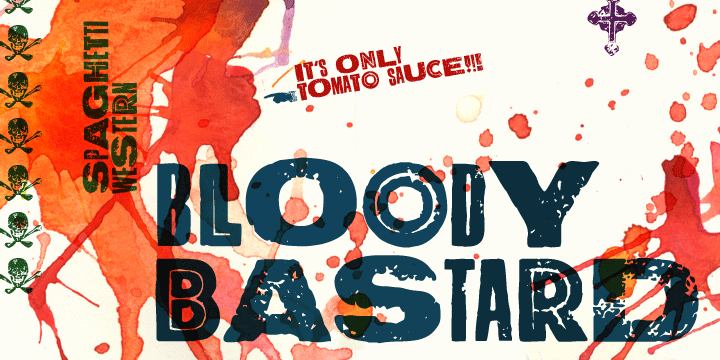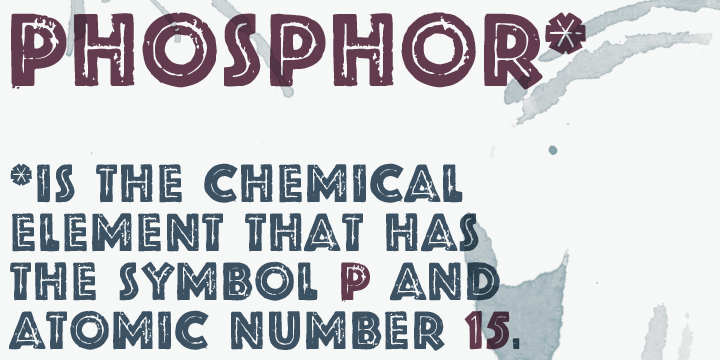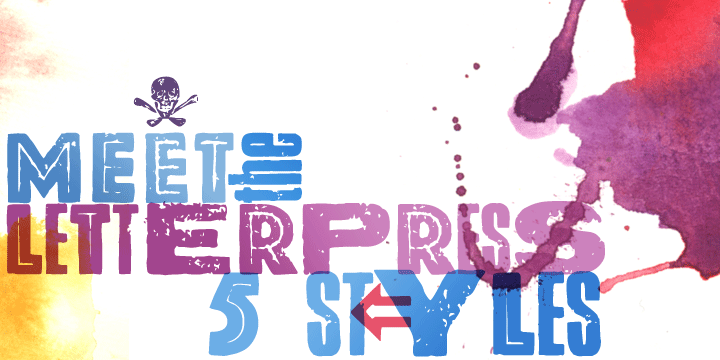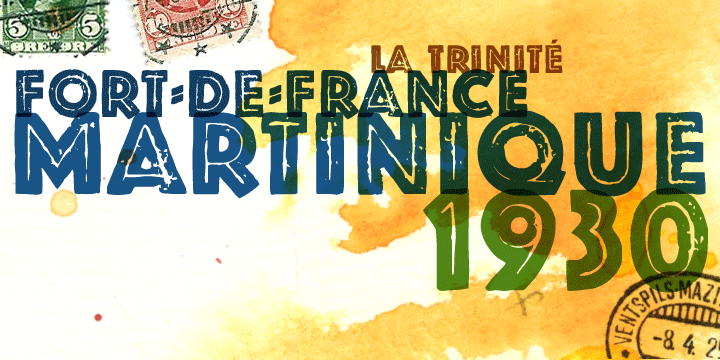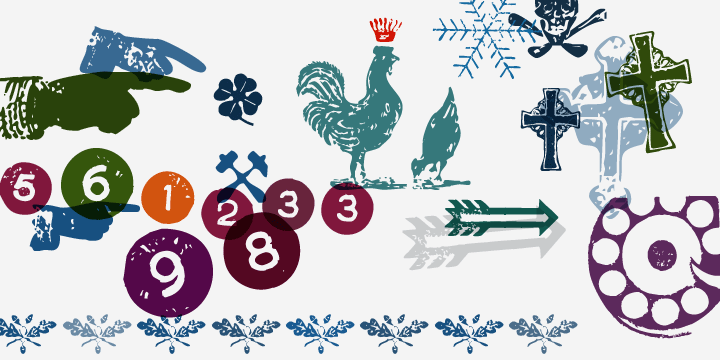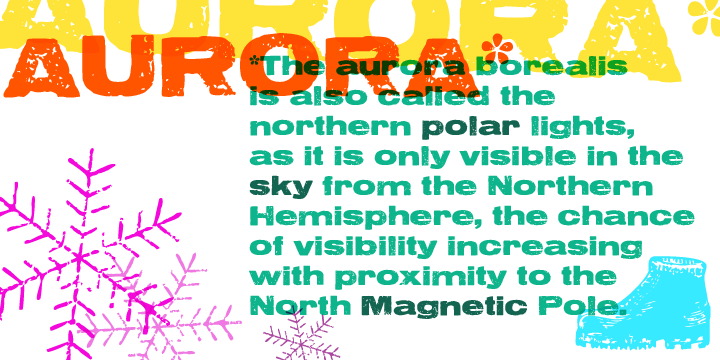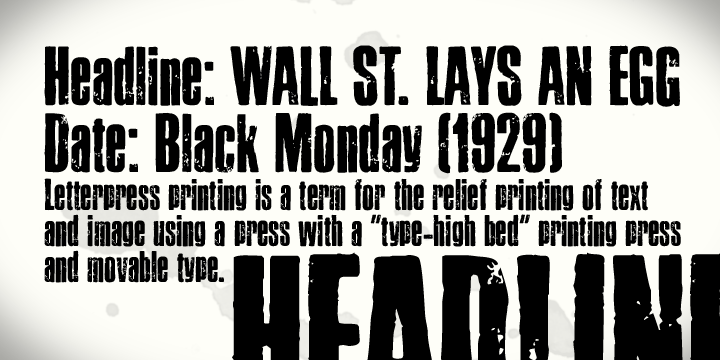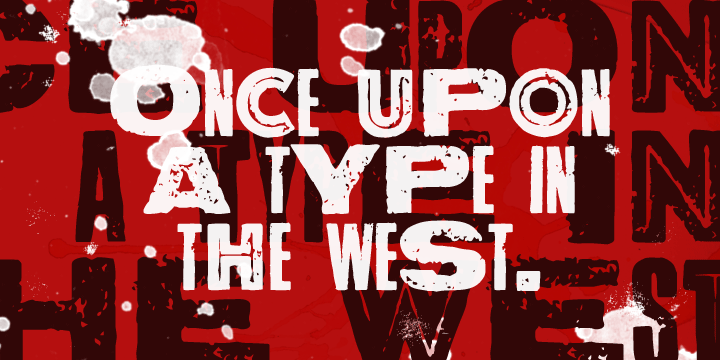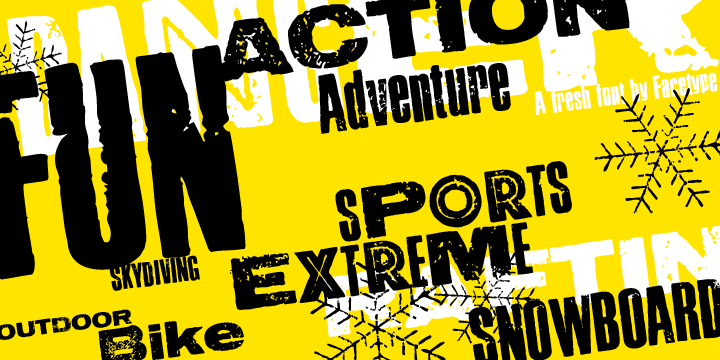
Jakob Erbar’s Phosphor was released by the Ludwig & Mayer Foundry before 1923. The origins of Aurora date back to 1912 (Johannes Wagner Foundry).
Permanent Headline was designed by Karlgeorg Hoefer, also known simply as Headline.
It was fun making a mix out of the three classics – with Letterpress Bastard you will quickly get astounding results.
To complete the family we added a font containing random symbols we also found in the metal type boxes.
Please note that we provided loads of ligatures for double-letters to make Your design look as authentic as possible.
Marcus Sterz
Jakob Erbar
Karlgeorg Hoefer